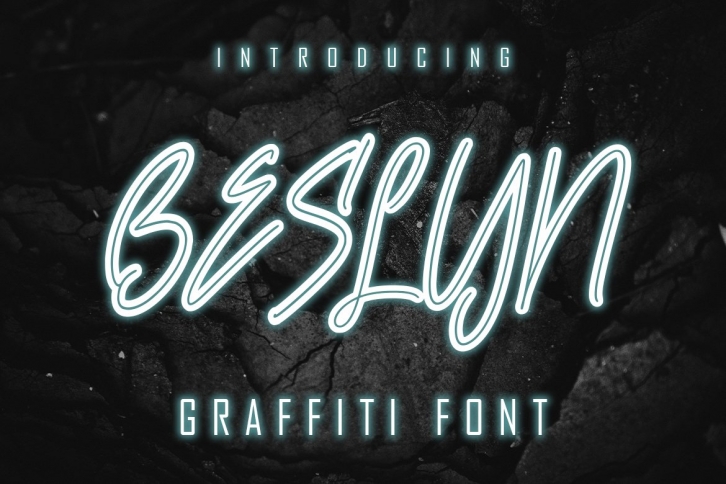
Beslyn Graffiti is a trendy and unique font with an authentic style. It was designed by SkiillerStudio and it's a great choice for creative people who need such a font. It was released on July 27, 2021 and the file size is 2.15 MB. Beslyn Graffiti will add an organic vibe to any design idea!